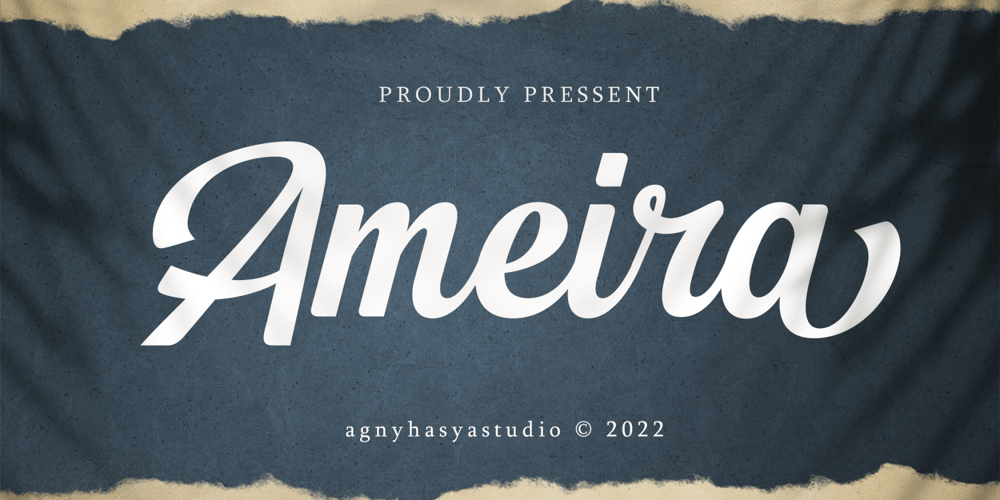
Ameira Font Family was designed by Firman Maulana and published by Agny Hasya Studio. Ameira contains 1 styles and family package options. Ameira is a modern lettering script font for use in display sizes, created with alternative glyph variations and ligatures. Perfect for your design projects like logos, branding, advertising, product design, stationery, photography, art quotes, wedding designs, fashion designs, and more.Features upper case and lower case characters, numerals and punctuation, has multilingual support, and OpenType features.